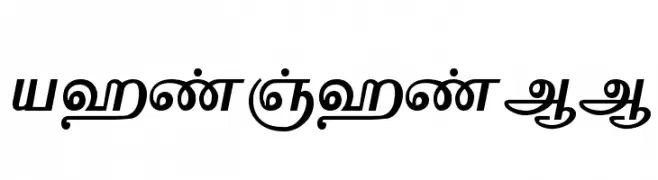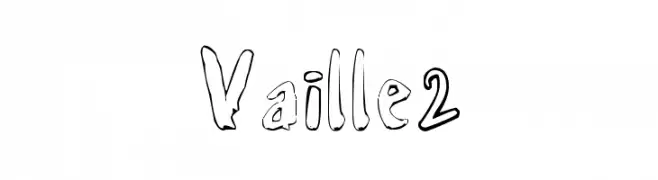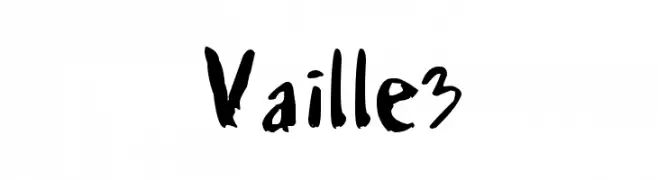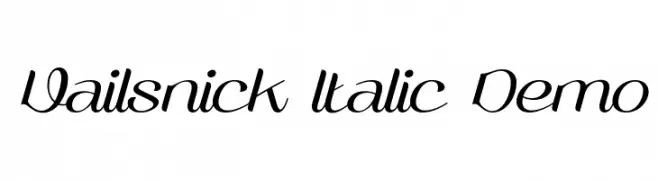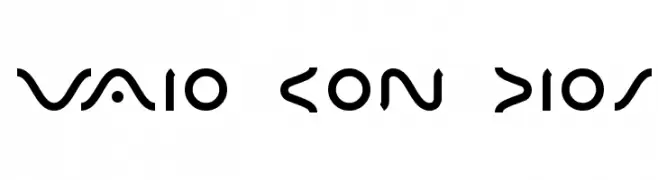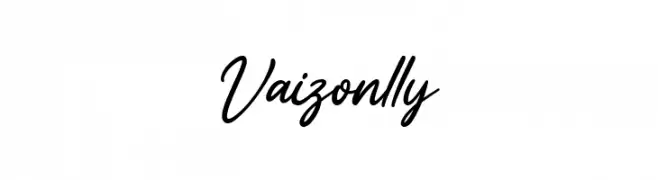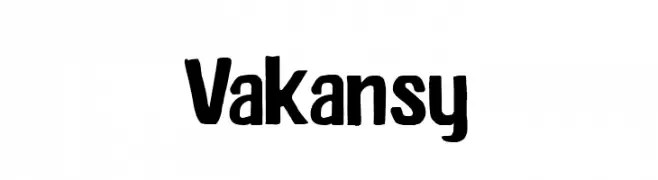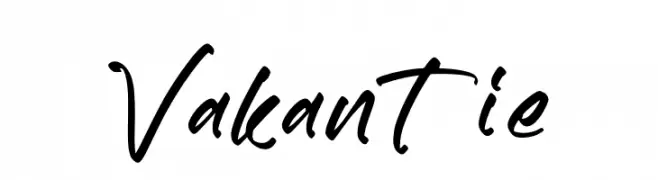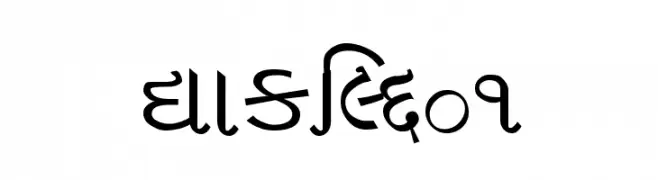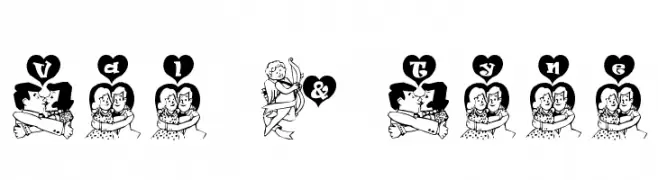
An elegant, flowing script font with a graceful slant and sophisticated curves.
A futuristic, geometric font with sharp angles and smooth curves.
A flowing, cursive font with elegant, sweeping strokes and a handwritten appearance.
A bold, playful font with a hand-drawn aesthetic.
A lively, cursive font with medium contrast and fluid strokes.
A decorative serif font with a blend of modern and classic elements, featuring ornate uppercase and traditional lowercase letters.
A modern and elegant font with artistic letterforms and decorative elements.
A bold, rounded, and playful font with a modern, chunky style.
A decorative, cherub-themed font with heart-shaped characters.
A modern, geometric font with uniform stroke width and balanced design.
A modern, geometric font with consistent stroke width and elegant simplicity.
A graceful and elegant script font with fluid, connected strokes.
A lively, cursive script font with dynamic contrast and elegant connections.
A modern, condensed, and light font with a clean and minimalist design.
A sleek, condensed, light italic typeface with a modern and elegant style.
A sleek, extra-condensed italic font with a modern and elegant style.
A sleek, extra-condensed, light sans-serif font with a modern aesthetic.
A modern, minimalistic sans-serif font with clean lines and geometric shapes.
A modern, light, and italicized font with sleek, minimalistic design.
A dynamic and elegant script font with flowing, connected letterforms.
A playful, decorative font with characters encased in heart shapes topped with bears.
A bold, decorative font with sharp serifs and a medieval flair.
A playful handwritten font with smooth curves and a casual style.
A bold, shadowed font with a three-dimensional effect, ideal for impactful designs.
A playful, bold font with rounded, thick strokes and a hand-drawn feel.
A lively, flowing script font with elegant curves and a handwritten feel.
A classic serif font with elegant, bold characters and a modern twist.